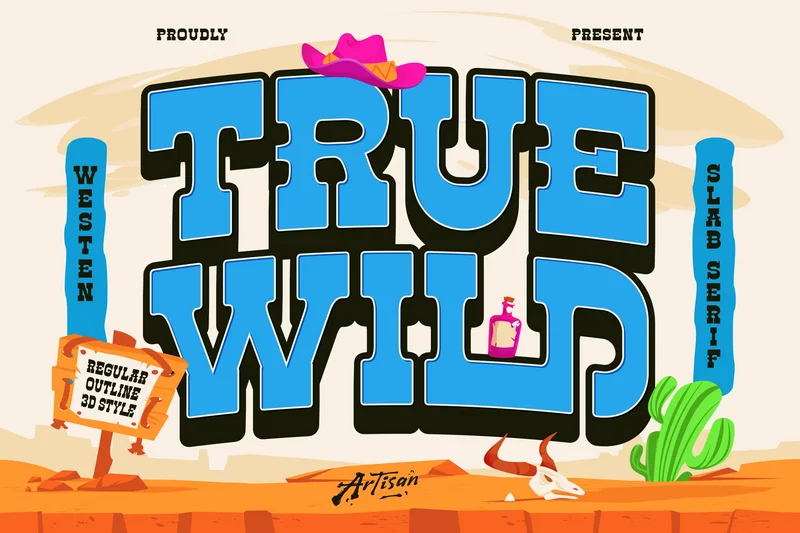
Truewild
Howdy, cowboy! Step into the world of Truewild, a bold Western slab serif that mixes the rugged charm of the Wild West with a clean modern look. Perfect for posters, product packaging, logo branding, or anything that needs a touch of cowboy attitude and vintage grit.
This font comes with Regular, Outline, and 3D styles, giving you full freedom to create designs that stand tall and shout confidence. From rodeo posters to modern country merch — True Wild brings desert energy, bold spirit, and that dusty, adventurous vibe to every project.
Let your typography ride free and go True Wild!